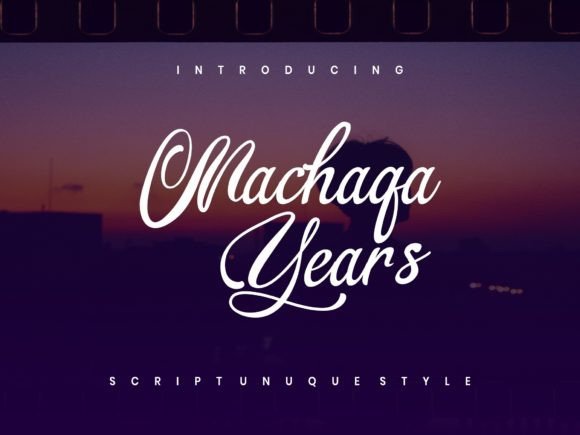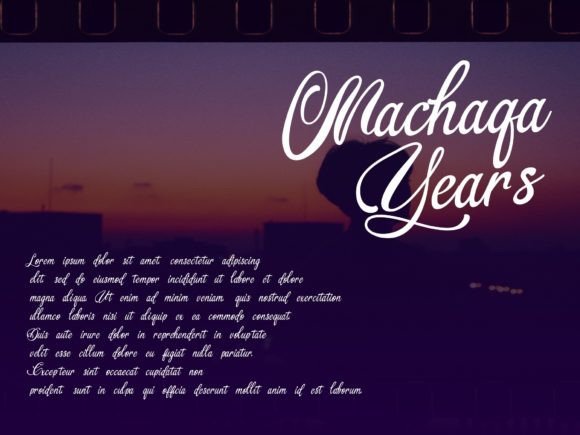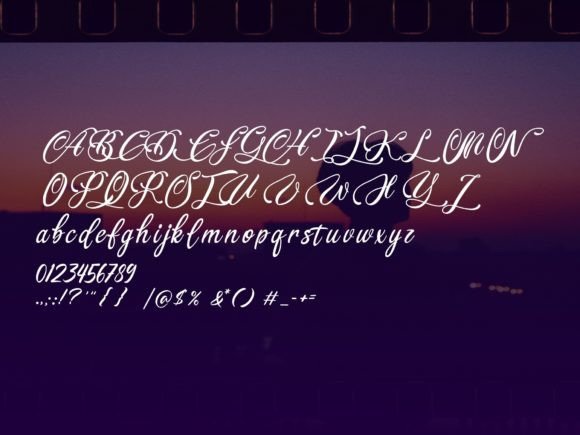
Machaqa Years Font
About Machaqa Years Font
An Elegant and Simple Script Font
The Machaqa Years Font is a beautifully crafted script font that combines elegance with simplicity. Its graceful curves and flowing design make it a perfect choice for a wide range of creative projects. Whether you’re designing logos, magazines, social media graphics, or brochures, this font adds a unique touch to any design.
Ideal for Logo Designs and Branding
The Machaqa Years Font excels in logo designs and branding materials. Its elegant yet simple style makes it versatile enough to work for both professional and personal projects. Whether you’re creating a logo for a startup or for a personal brand, this font ensures that your brand identity is memorable and sophisticated.
Perfect for Magazines and Social Media
If you’re designing for magazines or creating social media content, the Machaqa Years Font is an excellent choice. Its readable script style enhances your design, making it suitable for everything from headlines to captions. The clean yet stylish lines make your content stand out, capturing the attention of your audience with ease.
Great for Brochures and Marketing Materials
For businesses and marketers, the Machaqa Years Font is ideal for creating brochures, pamphlets, and other promotional materials. Its sleek design works well in both large and small formats, making it perfect for advertisements that need to convey elegance without overwhelming the viewer. This font is a great choice for businesses that want to present themselves as refined and professional.
Versatile for Multiple Creative Projects
One of the standout features of the Machaqa Years Font is its versatility. It can be used for a variety of projects, from formal designs like invitations to informal ones like greeting cards. Its unique feel brings personality to any design, making it a go-to font for designers looking for an elegant yet approachable script font.
Beautiful and Easy to Use
The Machaqa Years Font offers the perfect balance of beauty and functionality. Its clear readability ensures your designs are both elegant and easy to read, even when used for longer text blocks. The simplicity of the design means that it won’t overpower other elements of your layout, making it ideal for both print and digital projects.
Perfect for Personal and Professional Use
Whether you’re working on personal projects like greeting cards or professional materials like business brochures, the Machaqa Years Font is an excellent choice. Its elegance makes it suitable for formal occasions, while its simplicity keeps it versatile enough for everyday use. This balance between elegance and functionality is what makes the font truly versatile.
Elevate Your Designs with Machaqa Years Font
If you’re looking to add an elegant, beautiful script to your designs, the Machaqa Years Font is the perfect choice. Whether you’re designing a logo, a magazine cover, or a brochure, this font will elevate your project with its sophisticated, unique style.